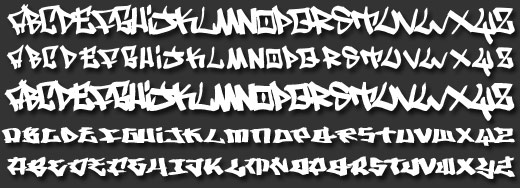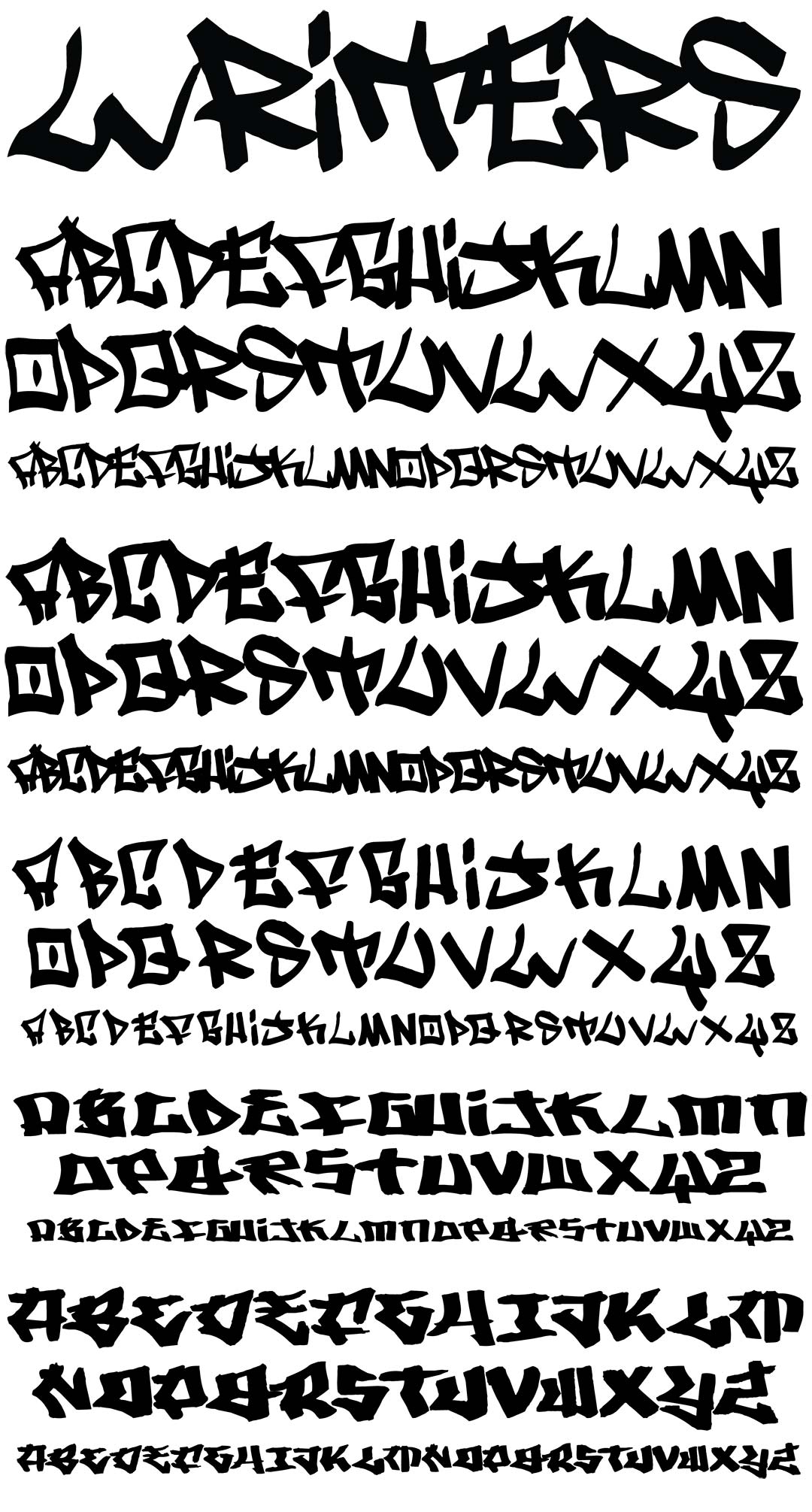
Writers Family
Writers Family Graffiti Alphabet
Writers Family Graffiti Font Family
The Writers font family is one of the earlier graffiti style fonts. The family consists of 4 unique styles, Regular, Condensed, Bold, Writers2, & Writers 3. These handwritten, squared off letters retain the look of real marker.